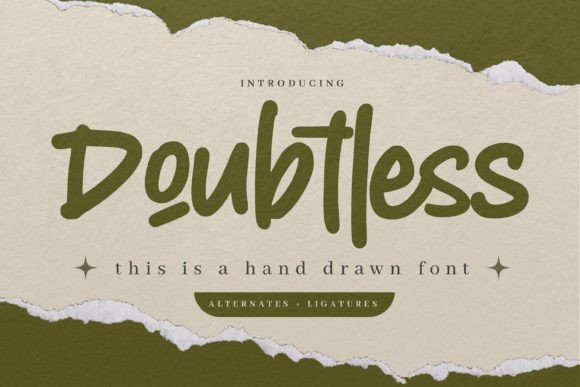
Unleash the power of expression with Doubtless Font, a captivating script font family that will transform your designs into masterpieces. Inspired by the dynamic world of sports, Doubtless embodies the energy and passion of athleticism, making it the perfect choice for creating impactful sports posters that leave a lasting impression.
Crafted with meticulous attention to detail by the talented Gassstype Studio, Doubtless Font seamlessly blends a playful and energetic vibe with a touch of elegance. Its natural and unique style lends itself effortlessly to a diverse range of design projects, from sports-themed posters to eye-catching social media graphics.
With Doubtless Font, your creativity has no boundaries. Explore a world of possibilities and let your imagination soar. Its versatility extends beyond sports posters, making it a perfect fit for branding, logos, invitations, product packaging, and more. Elevate your designs with this charming and energetic font that will capture hearts and leave a lasting impact.
Embrace the spirit of individuality and make a statement with Doubtless Font. Its unique character will add a touch of personality to any project, helping you stand out from the crowd and captivate your audience.
So, dive into the world of Doubtless Font today and ignite your creativity. Let its playful charm and energetic spirit infuse your designs with a vibrant and dynamic aura that will leave an indelible mark on your audience. Experience the power of expression and let Doubtless Font transform your designs into works of art.